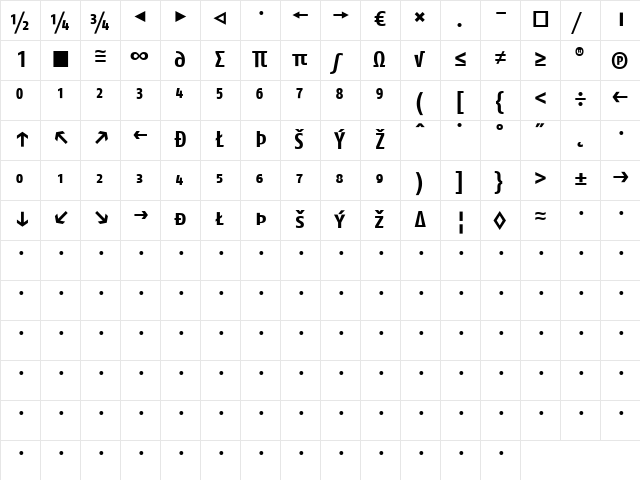
FagoCo Bold Font Preview
FagoCo Bold
FagoCo Bold Font Details
Design Context for FagoCo Typeface
FagoCo offers clean, dependable letterforms without strong stylistic allegiance, making it a practical choice for designers who need flexibility. The heavy weight commands attention and anchors typographic hierarchies.